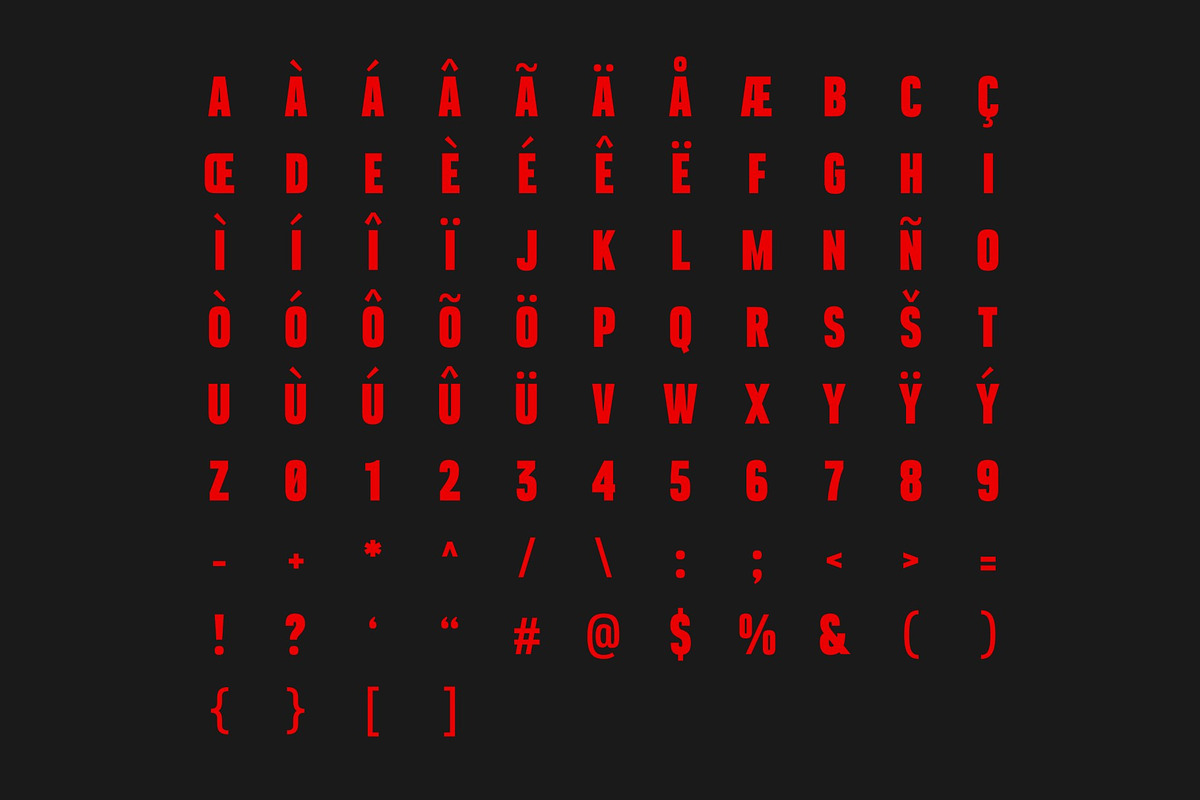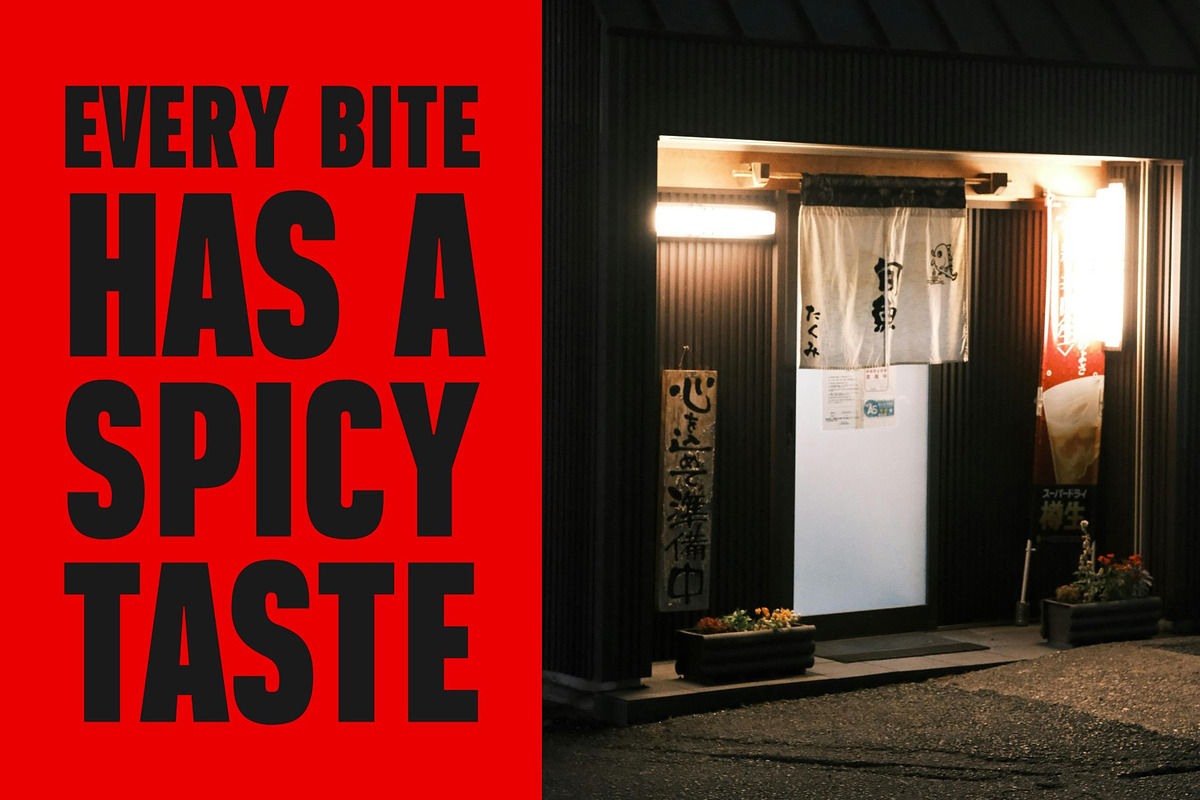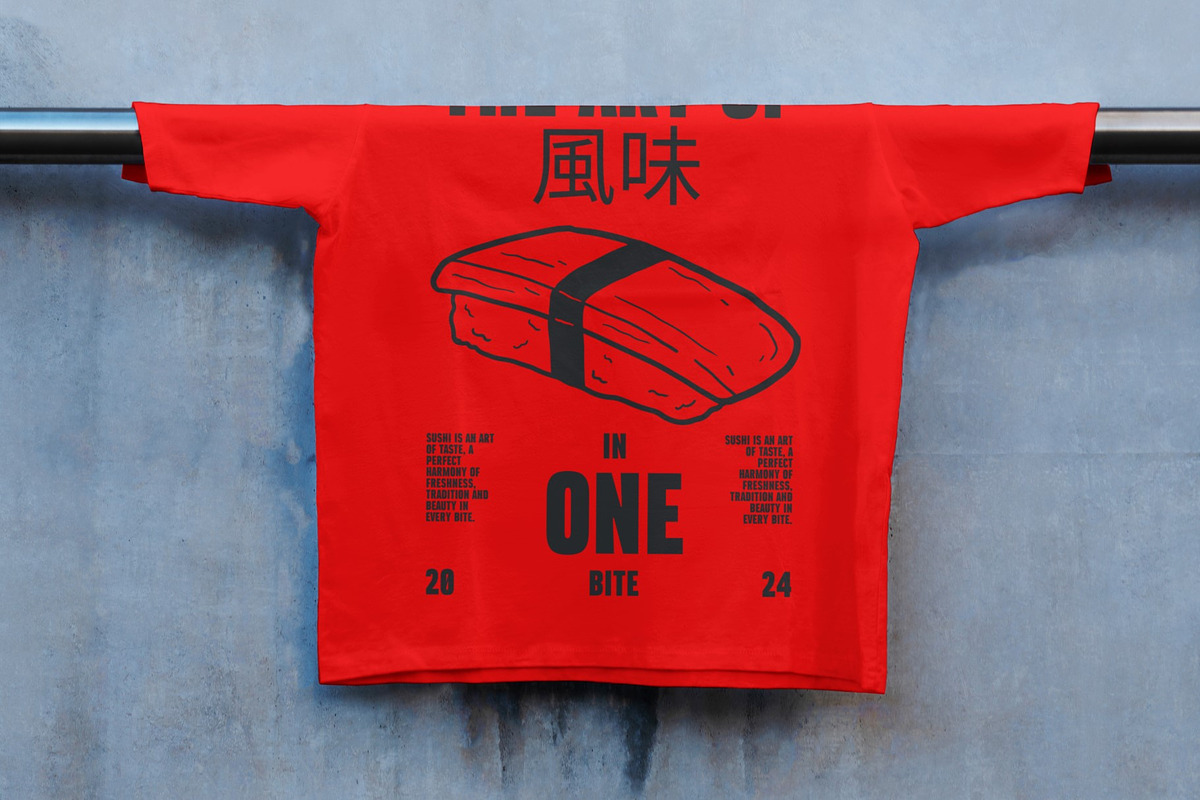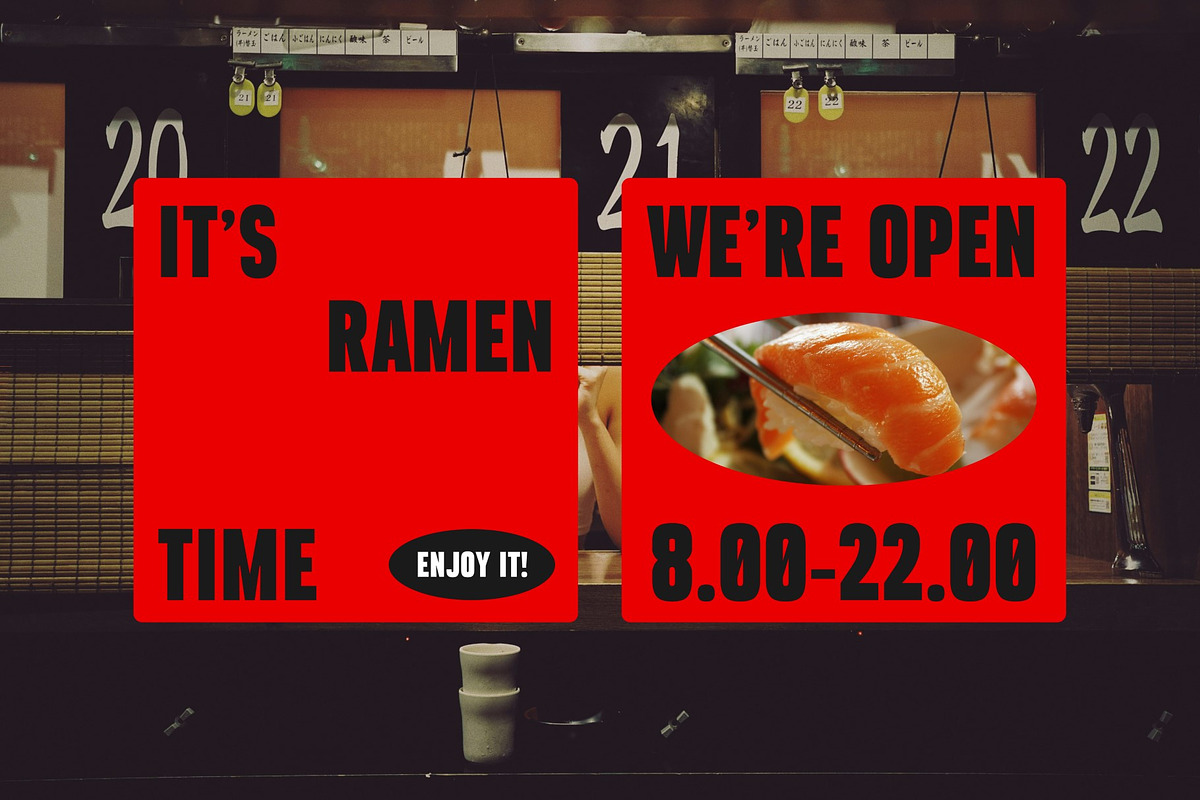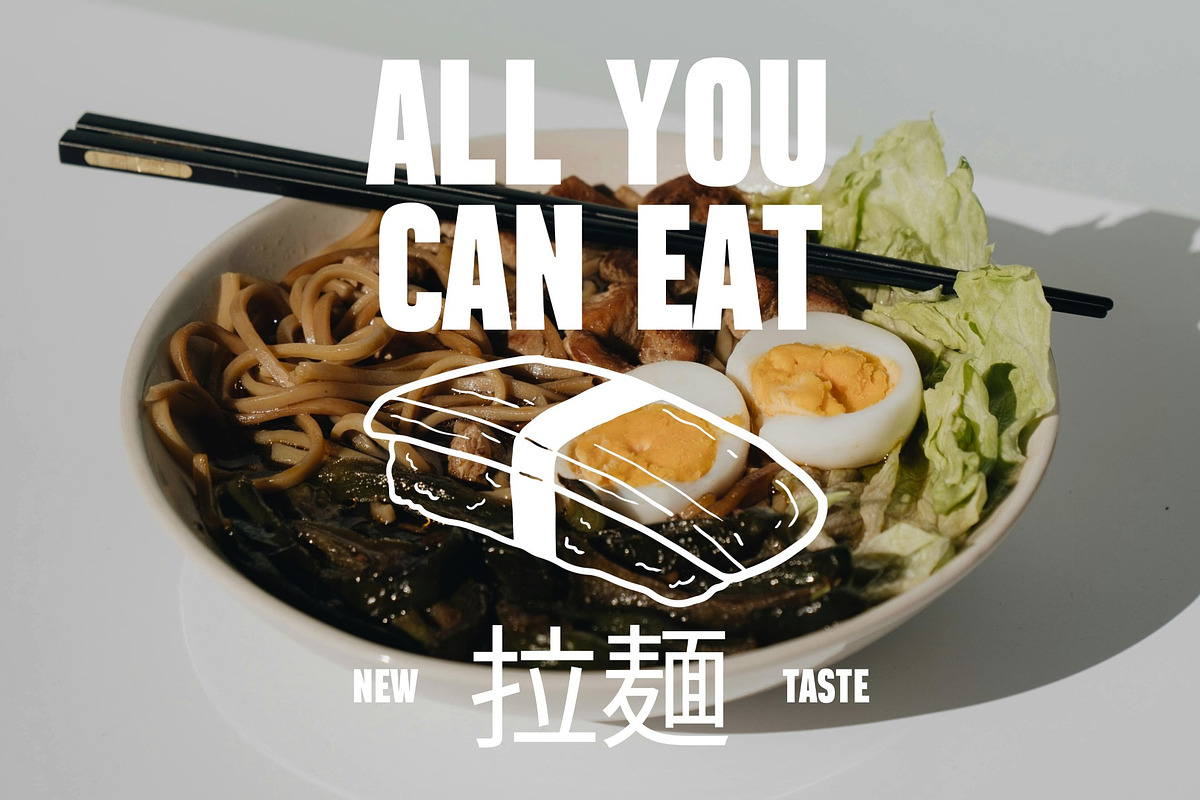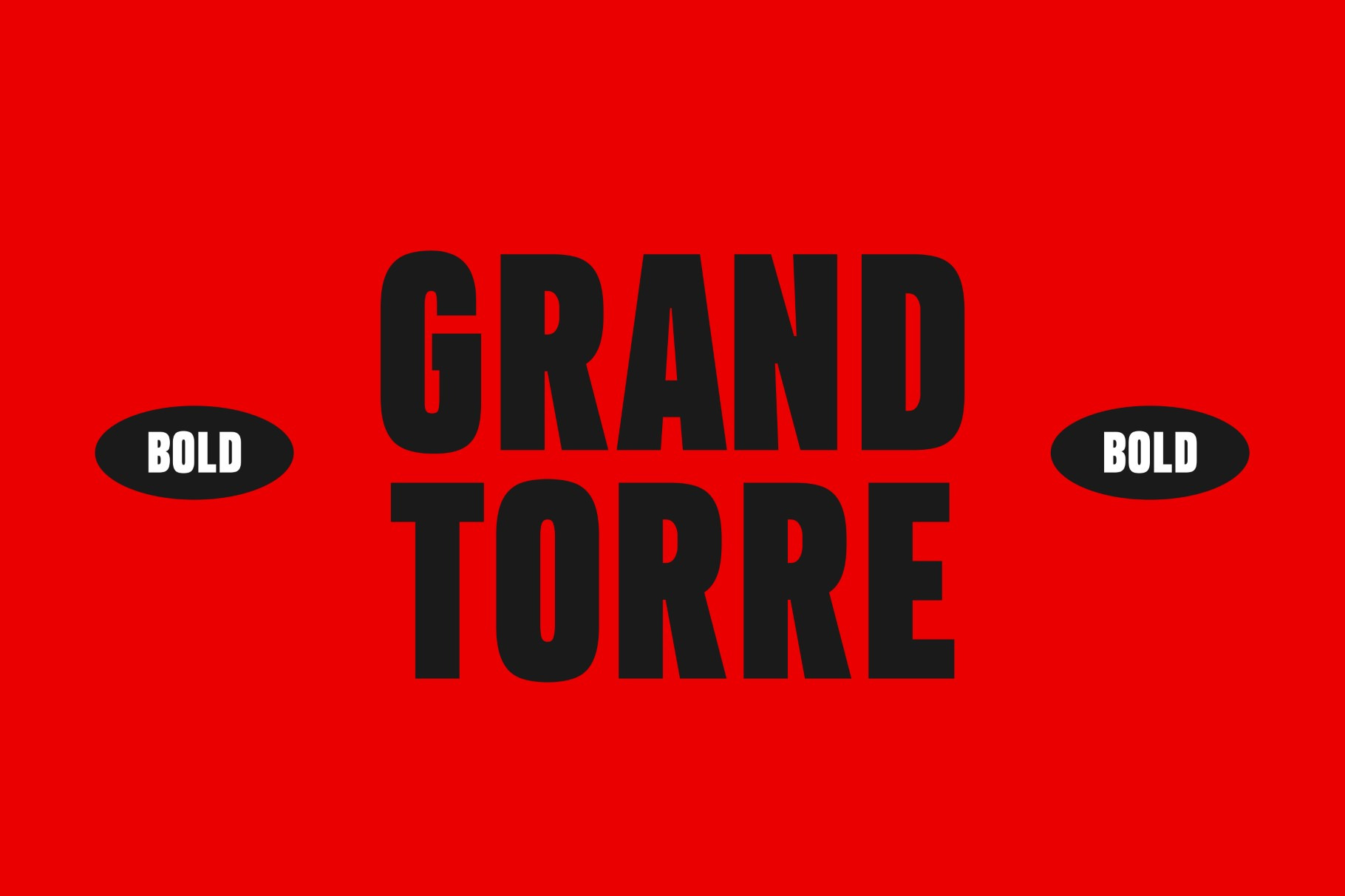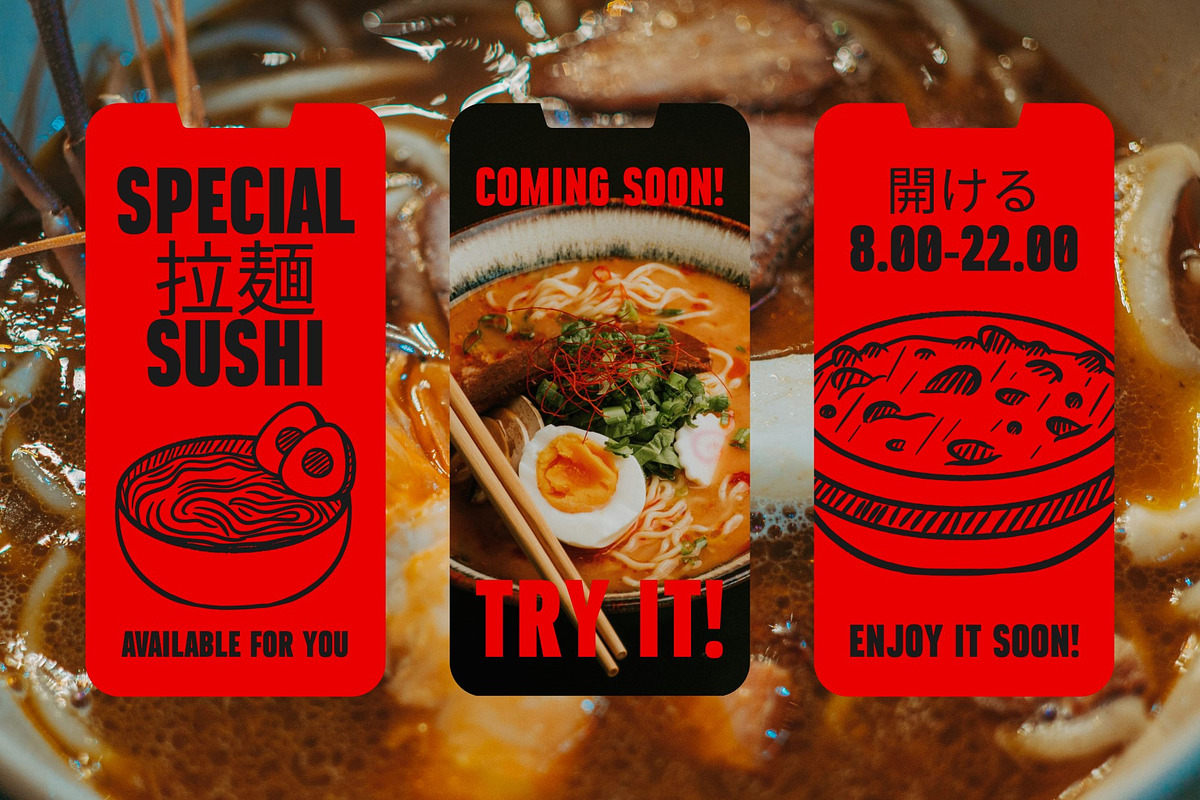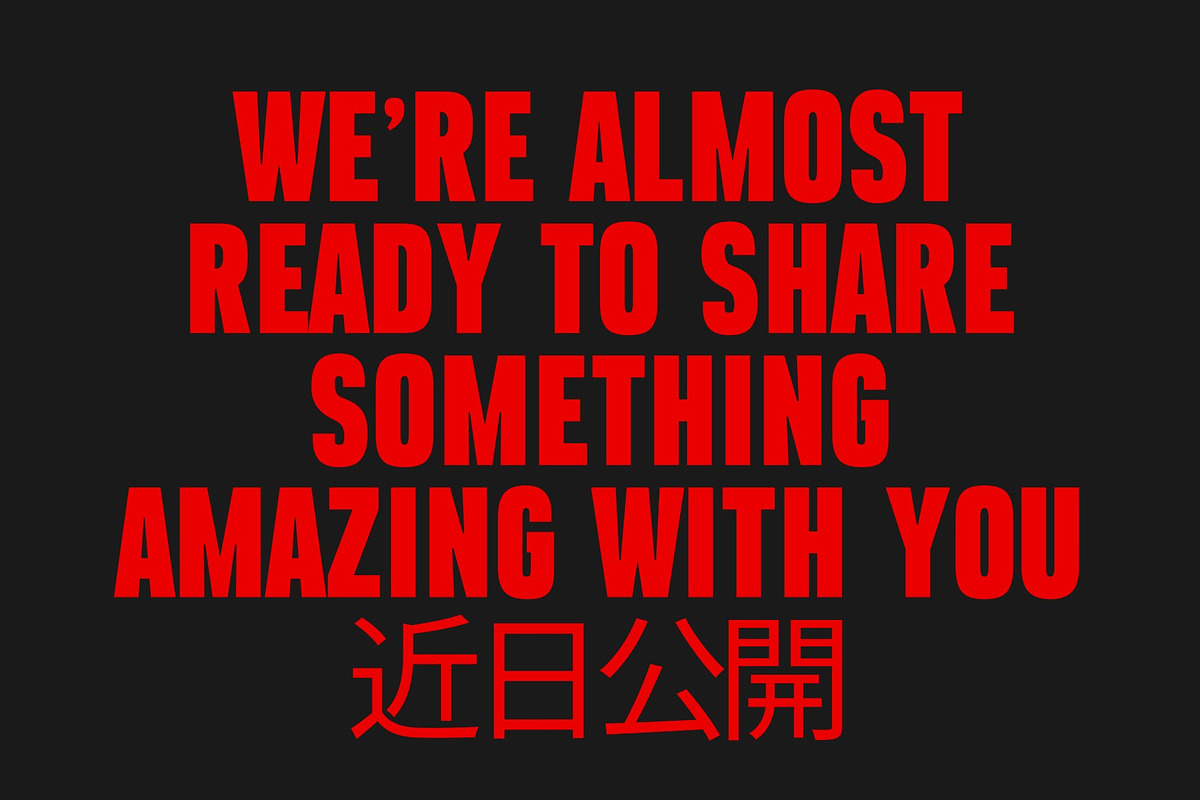
Grandtorre Font - Bold
Grandtorre is a bold, retro display font created by Moara Studio. With its strikingly modern lines and nostalgic appeal, Grandtorre is perfect for standout headlines, posters, and branding that seeks a classic yet contemporary feel. This versatile font adds energy and personality to any design project.